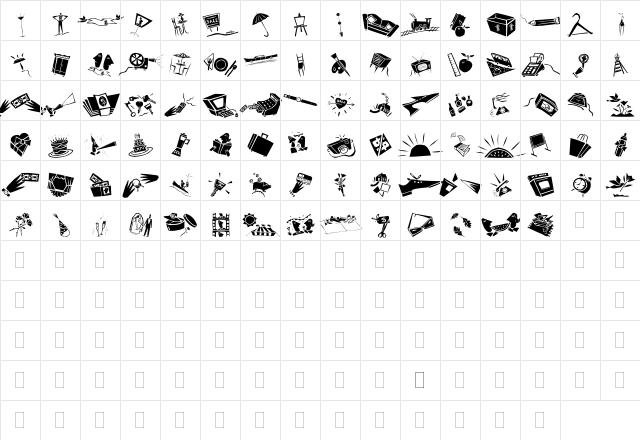
DF Commercials Plain Font Preview
DF Commercials Plain
Design Context for DF Commercials Typeface
DF Commercials is a composed and adaptable typeface that performs quietly and consistently across a wide range of design contexts.
Pro Tip: Use DF Commercials in both headline and body roles to test its range before committing to a single application.